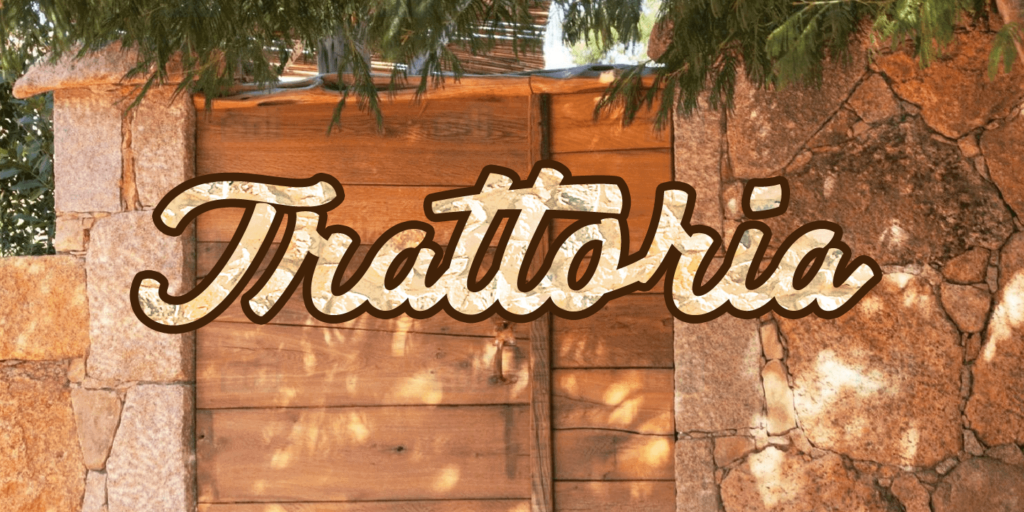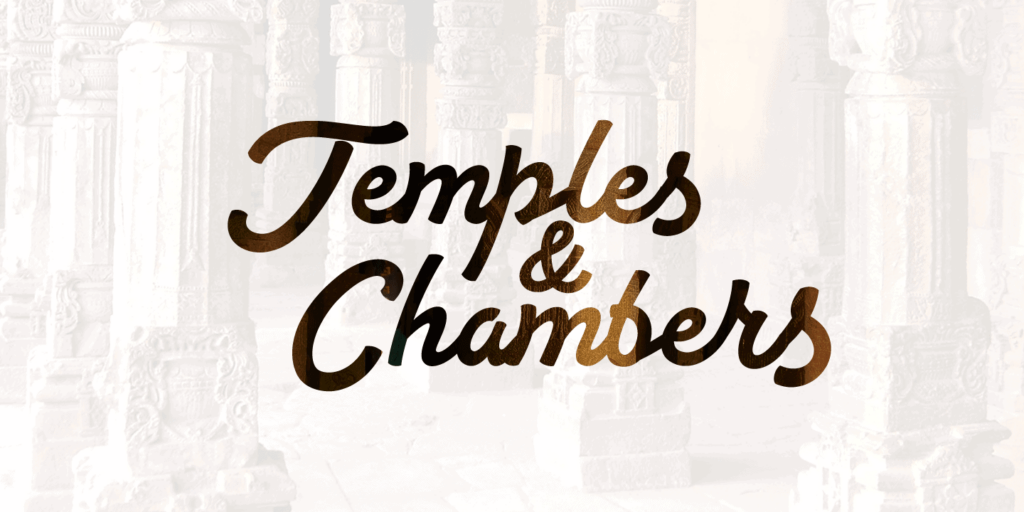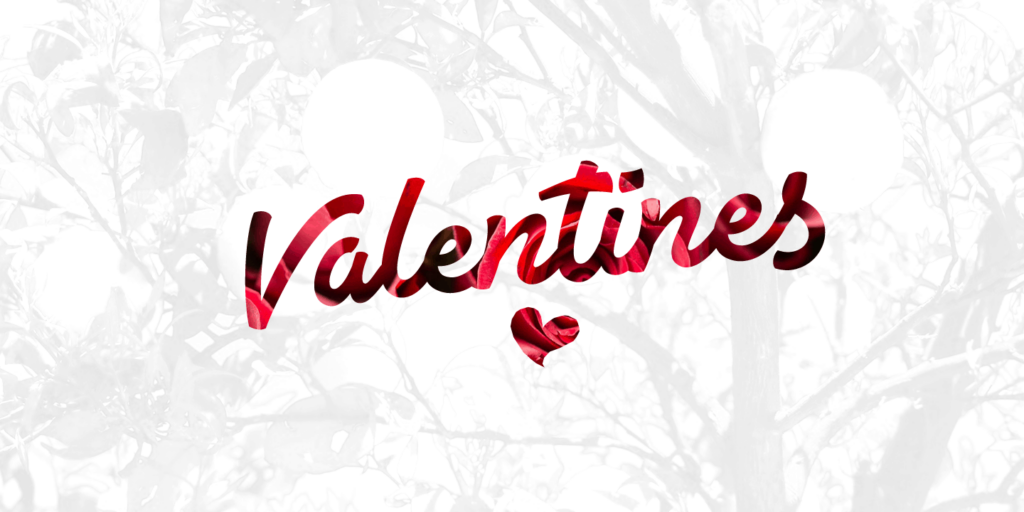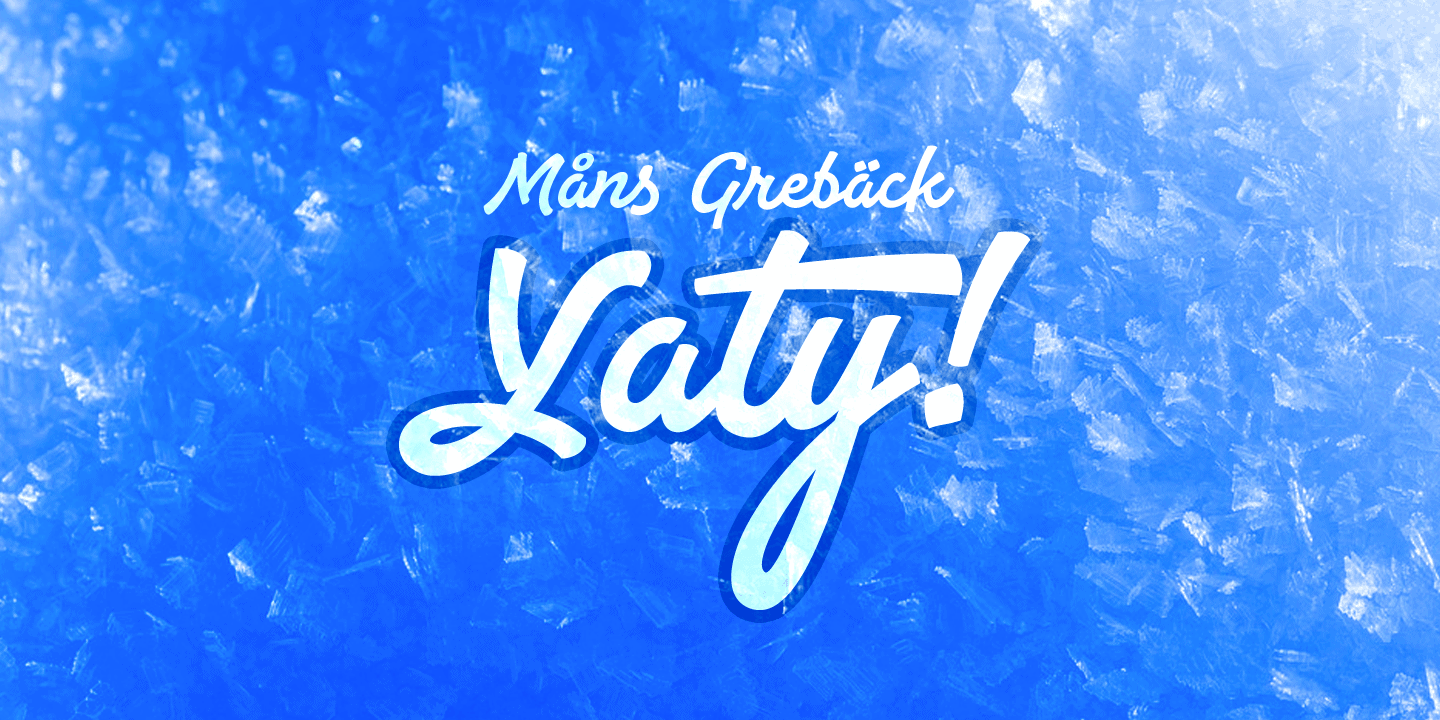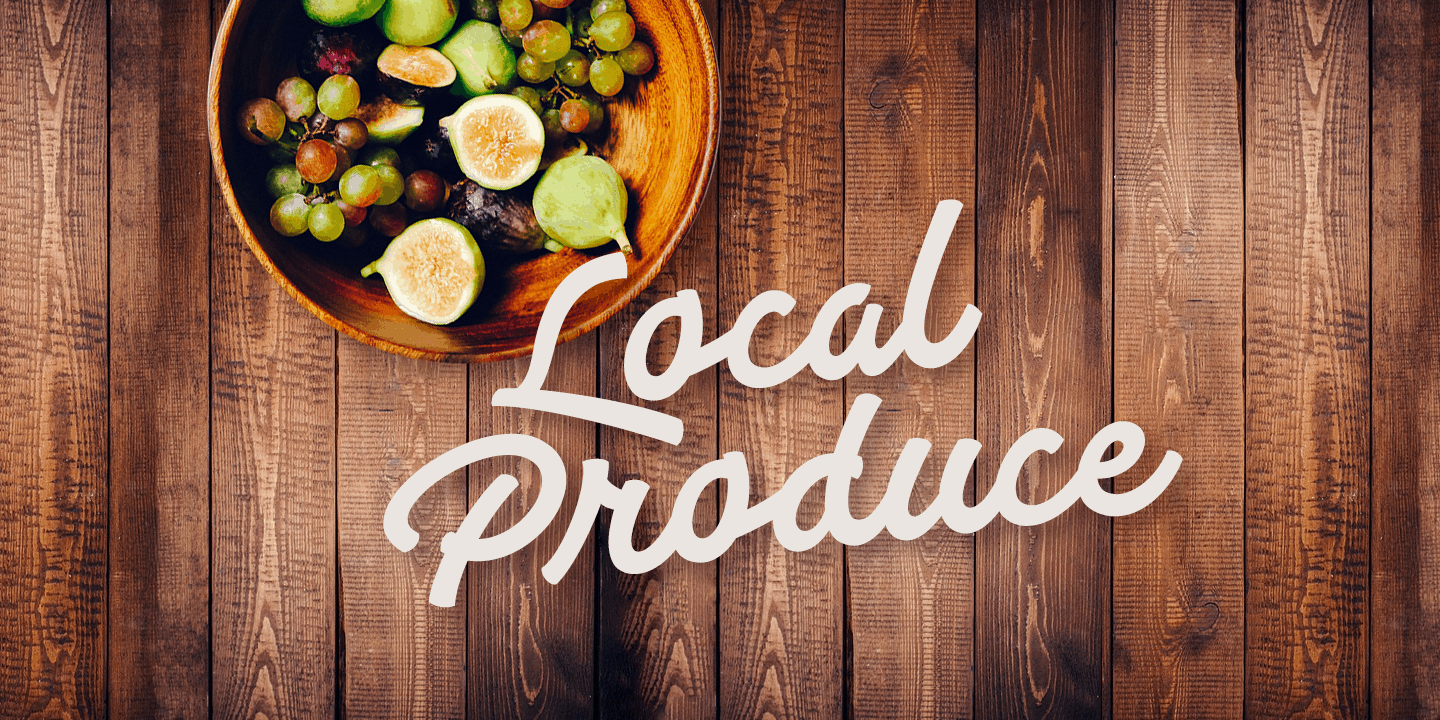
Yaty
Yaty is a relaxed and spontaneous script font.
With its long descenders, bold capital letters and genuine style, this typeface fits perfectly for a down-to-earth logo or headline, emitting familiarity and friendliness.
The font contains ligatures and support for an extensive range of world-wide languages.